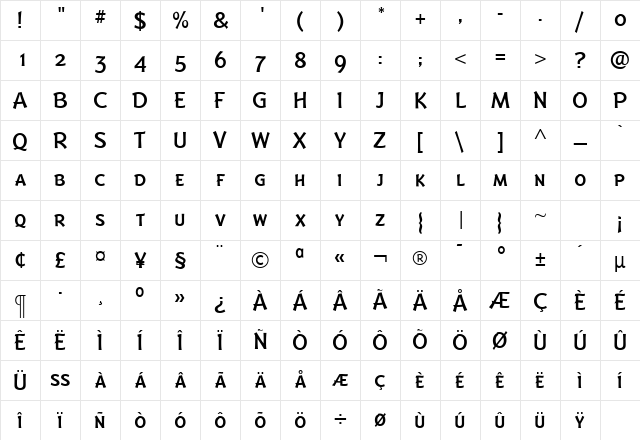
BadgerMediumExpert Roman
Style: Roman
Design Context for BadgerMediumExpert
BadgerMediumExpert is a composed and adaptable typeface that performs quietly and consistently across a wide range of design contexts.